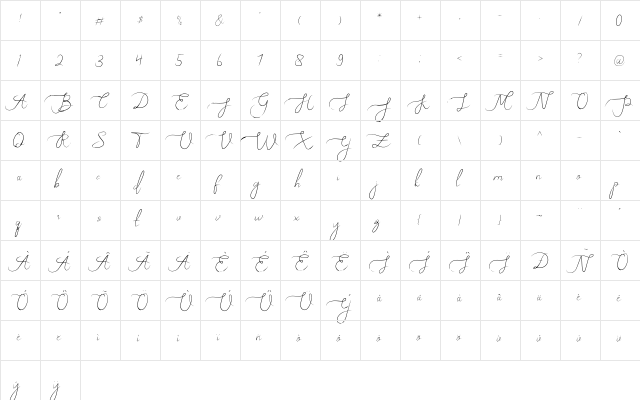
Melly Eret Regular
Design Context for Melly Eret Typeface
Melly Eret is a composed and adaptable typeface that performs quietly and consistently across a wide range of design contexts.